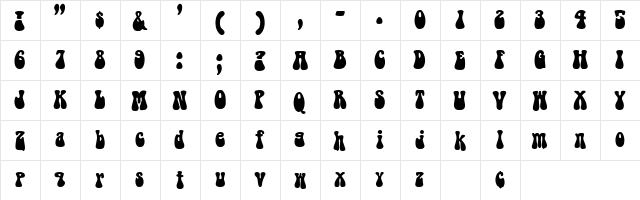
Seventies - Norm Laser
Design Context for Seventies - Norm Typeface
Seventies - Norm is a composed and adaptable typeface that performs quietly and consistently across a wide range of design contexts.
Pro Tip: Use Seventies - Norm in both headline and body roles to test its range before committing to a single application.